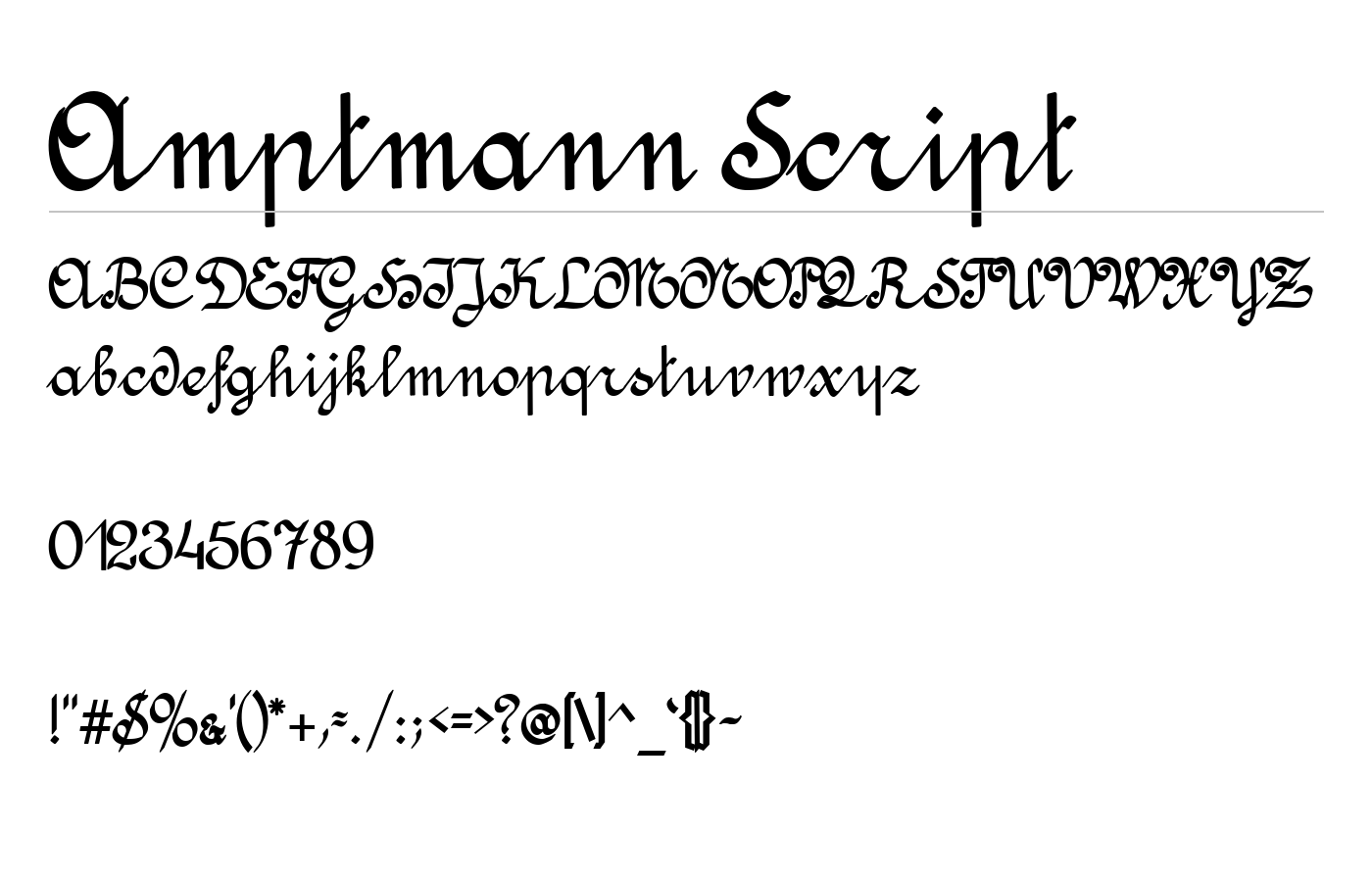
Amptmann Script is a distinctive serif-based typeface blending calligraphic elegance with Gothic influences, featuring sharp, angular strokes and decorative flourishes. Its high contrast and narrow proportions give it a formal yet artistic feel, making it ideal for vintage-inspired branding, editorial headlines, and creative packaging where a dramatic, handcrafted touch is desired. This font stands out best in display use where its unique letterforms can be appreciated for their ornamental complexity.
Amptmann Script Font
About Amptmann Script Font
| Designer | Peter Wiegel |